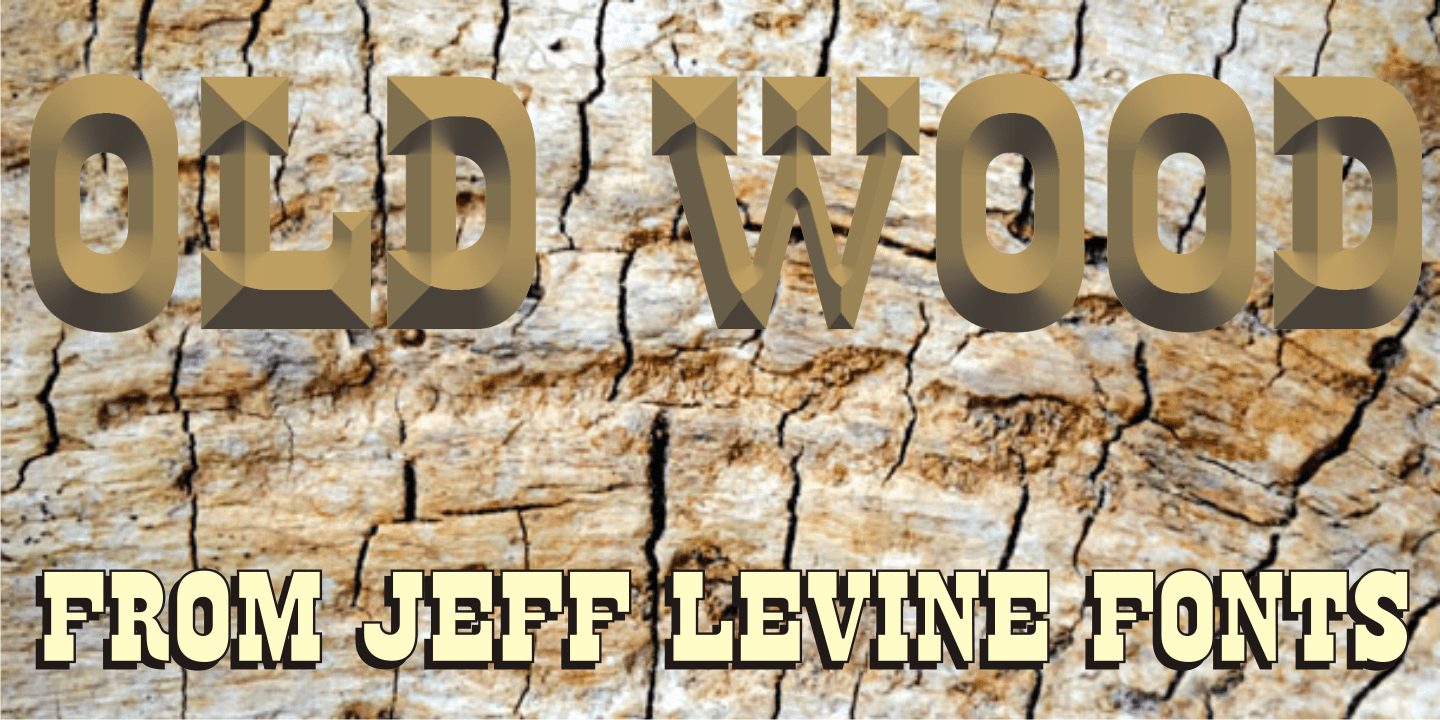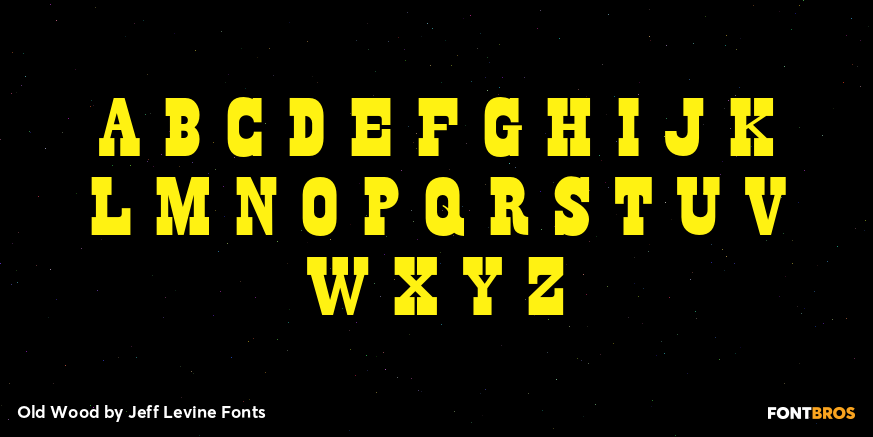
Old Wood
One of the charming features of vintage wood type is the unusual interplay of stroke widths or letter shapes that can vary from character to character.
In today's world of digital perfection, a set of letters, numbers and punctuation marks must conform to rigid standards of uniform lines, balanced curves and other form-and-function rules that has often removed the human feel from the overall type design.
While this is fine when applied to most text fonts and some modern display faces, Old Wood JNL is a simple throwback to an earlier time when type design was an artistic, not engineering endeavor.
Modeled in part from vintage source material, this wood type design retains that charming imperfection of a time long passed.